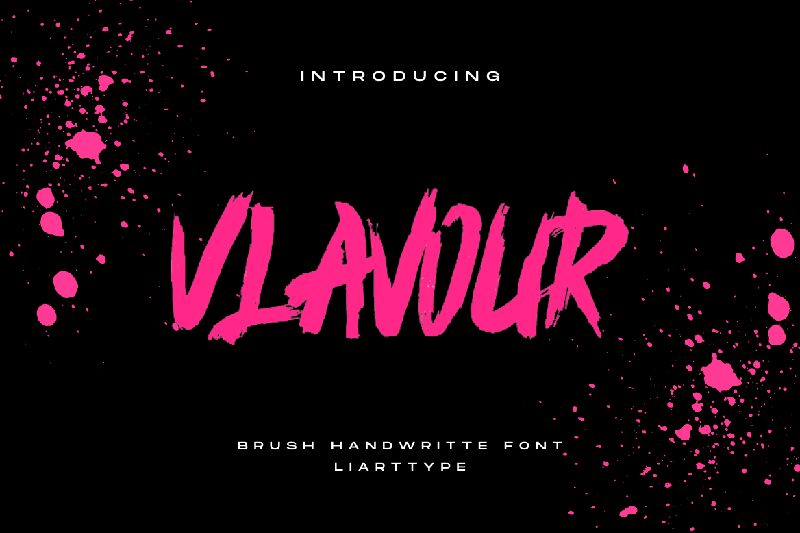
Vlavour by Sifak Muf captures the raw, energetic essence of hand-painted typography. With its bold and dynamic brush style, this font brings a touch of authenticity and creativity to any design. The strong, sweeping strokes and slightly rugged edges reflect an unrestrained artistic flair, making each character burst with life.
Perfect for titles, posters, branding projects, and any creative endeavor seeking a standout statement, Vlavour is designed to command attention. Its expressive nature ensures that messages not only get noticed but remembered. Whether aiming for a modern edge or a rustic vintage vibe, Vlavour adapts beautifully to diverse visual narratives. It’s more than just type-it's a work of art on its own.